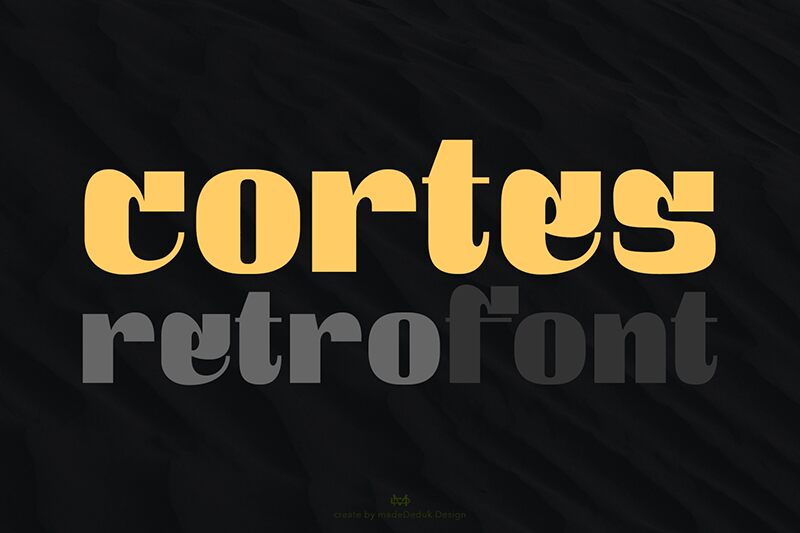
Cortes Demo Regular
Cortes font by madeDeduk is a free bold retro display font. It stands out with chunky, inky slabs punctuated by crisp rectangular cutouts, giving each letter a carved, stencil-like snap. The rhythm feels modular yet playful—rounded bellies meet squared apertures—so headlines land with a confident, poster-ready thud while still reading smoothly.
This free font shines on event posters, album covers, vintage packaging, cafe signage, social promos, bold logos, and editorial openers. Using Cortes, add a touch of letterspacing at large sizes to let the cutouts breathe, and pair it with a clean grotesk to handle body text. Its sculpted contrasts turn short words into striking marks, making your message punchy, memorable, and unmistakably retro.